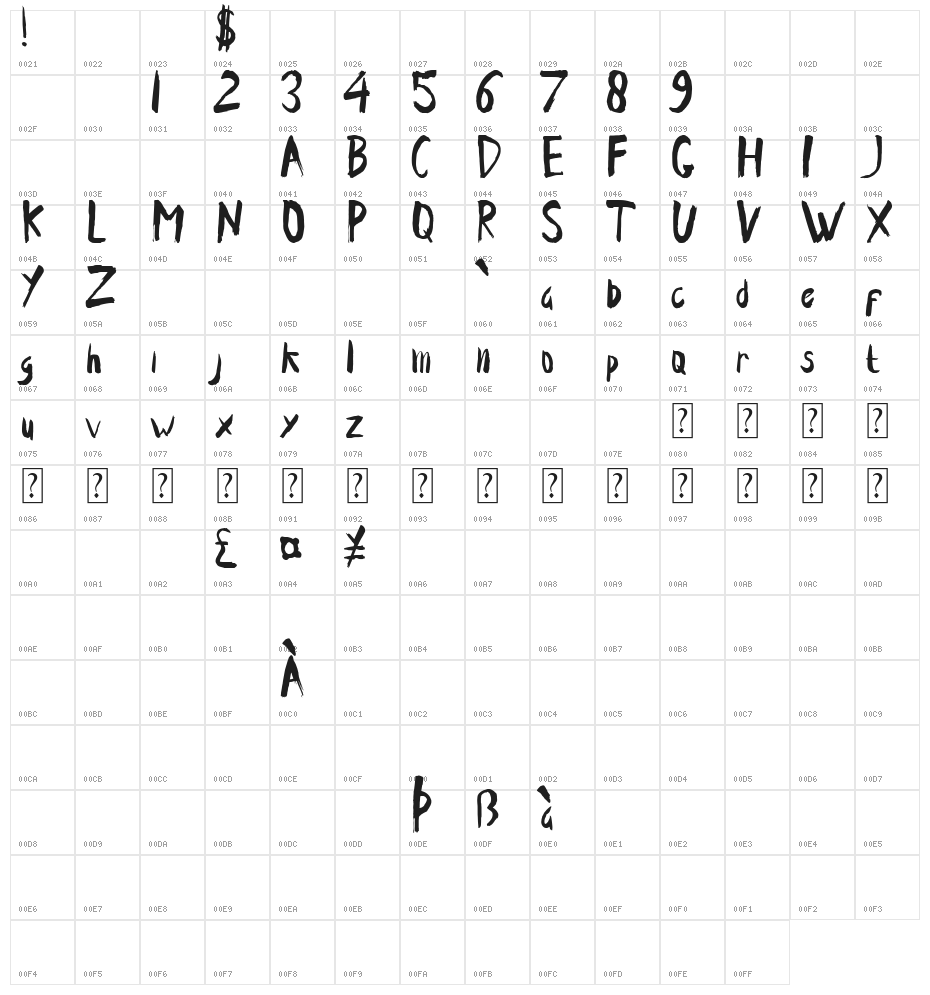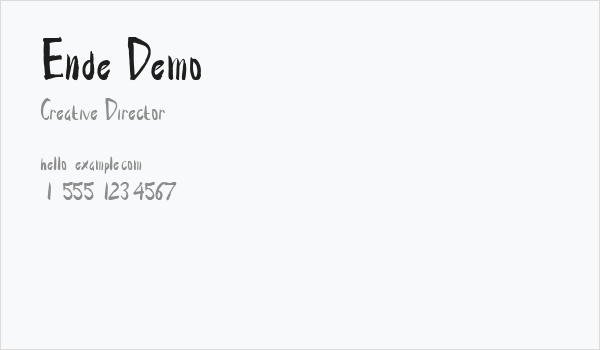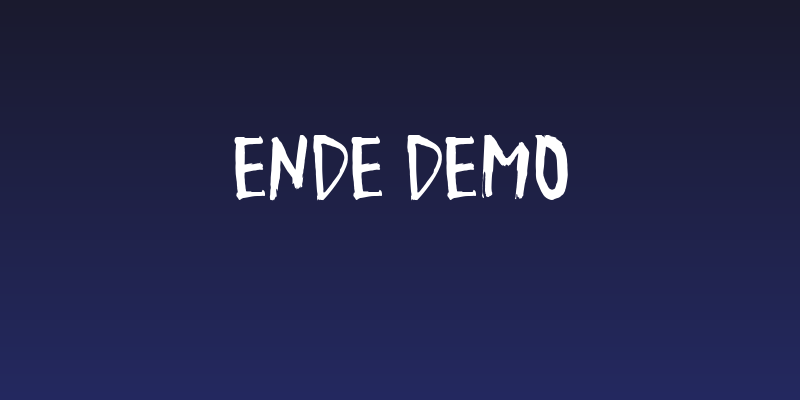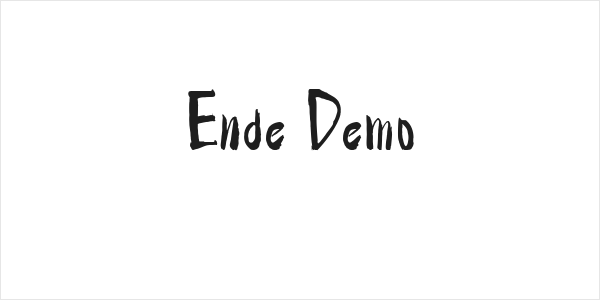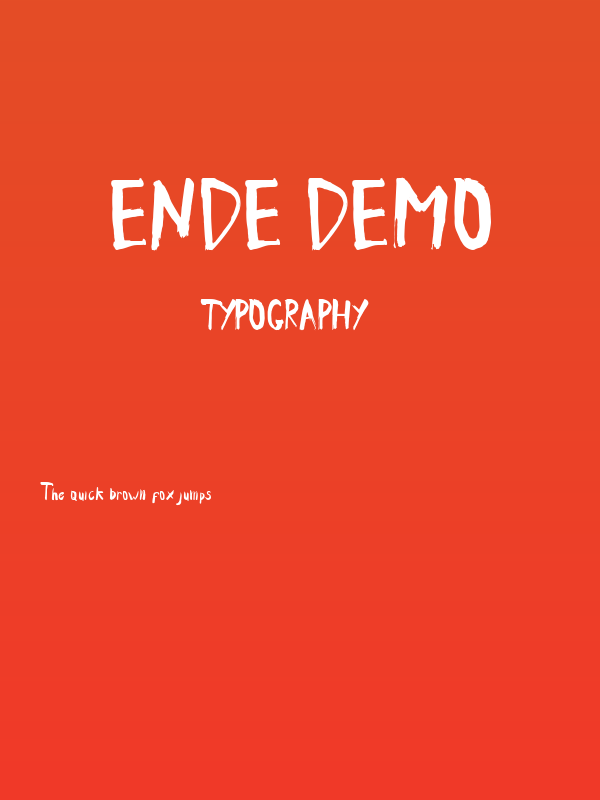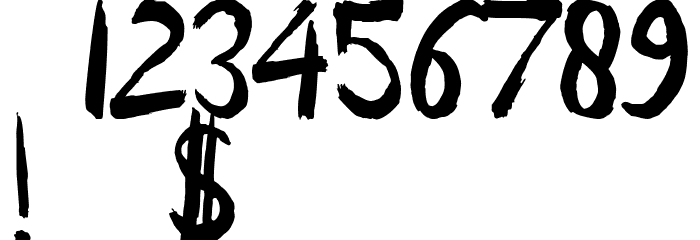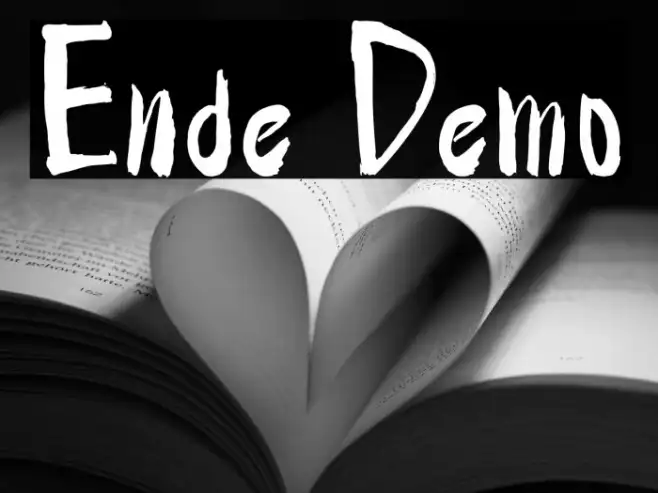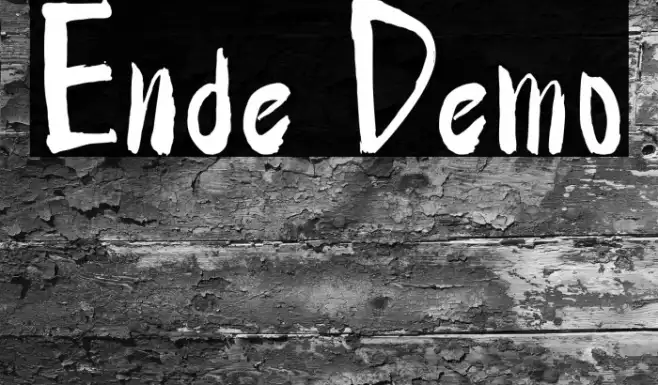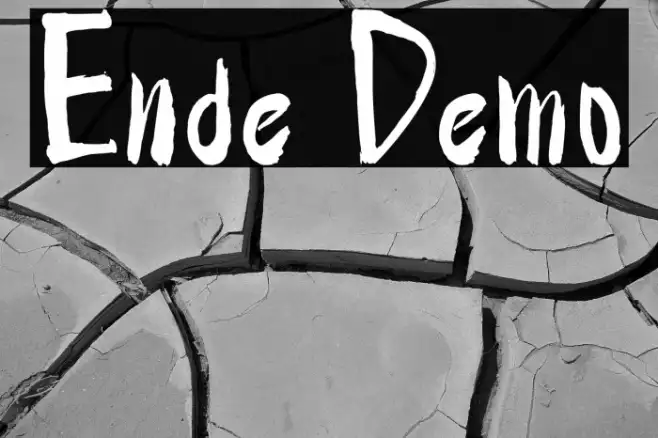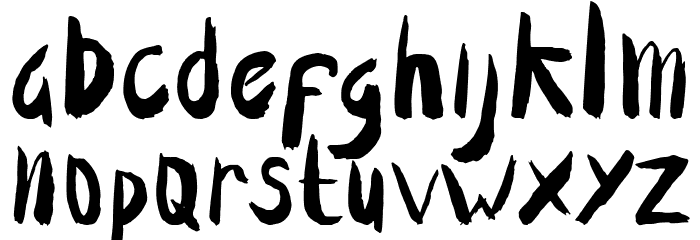
Ende Demo Font
Ende Demo Description
This font exhibits a bold, expressive style with a hand-painted appearance. The strokes are uneven and dynamic, giving each character a unique and artistic flair. The uppercase letters are tall and commanding, while the lowercase letters maintain a consistent flow, enhancing the overall organic feel. The numbers are equally bold, with distinct shapes that ensure readability. Special characters like the exclamation mark and dollar sign are crafted with the same artistic touch, making them stand out. This font's raw and energetic style makes it perfect for creative projects that require a personal and impactful touch.
| Overall Style | Artistic, Expressive |
| Use Case | Headlines, Posters, Branding |
| Proposed Projects | Ideal for art projects, posters, branding, and any design requiring a bold, artistic touch. |